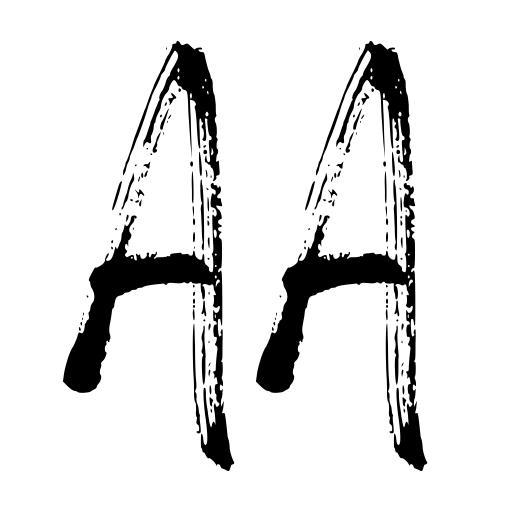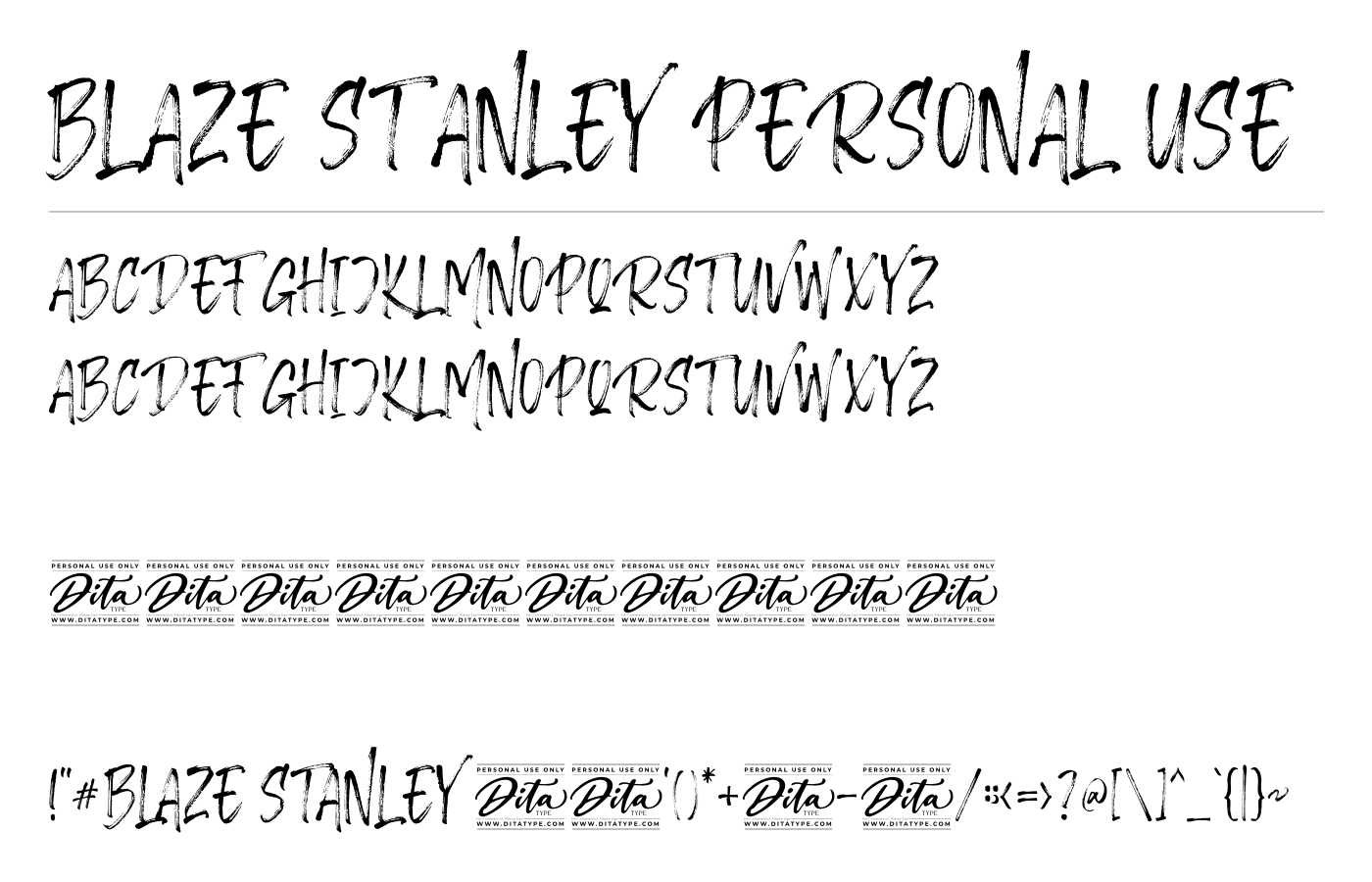
Blaze Stanley Personal Use is a dynamic and expressive handwritten font characterized by its rough, brush-like strokes and irregular letterforms. It conveys a raw, artistic vibe with tall, narrow characters and a distinctly casual yet edgy feel, making it ideal for creative projects, bold headlines, or designs seeking a personal, hand-crafted touch. This font works well in posters, logos, and branding that aim to stand out with an unconventional and lively personality.
Blaze Stanley Personal Use Font
About Blaze Stanley Personal Use Font
| Font family | Blaze Stanley Personal Use Font |